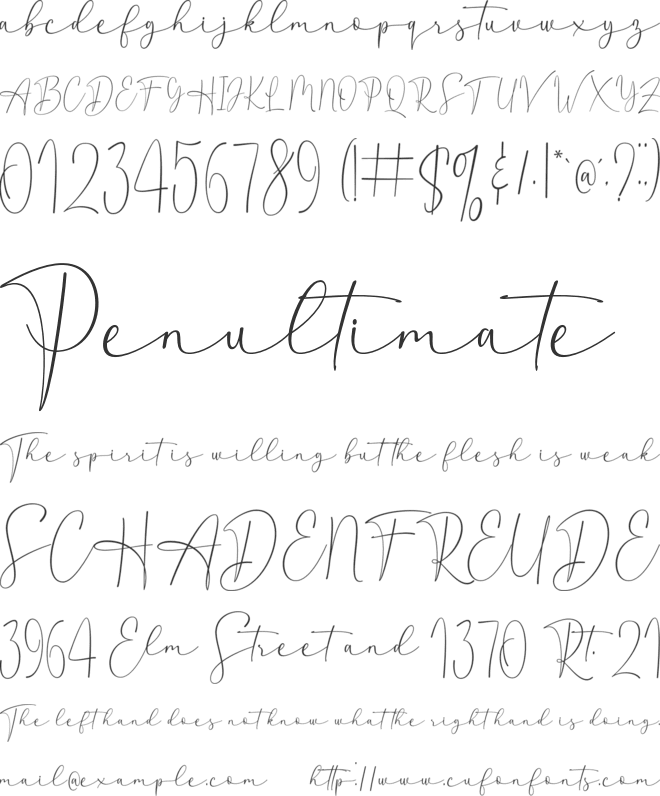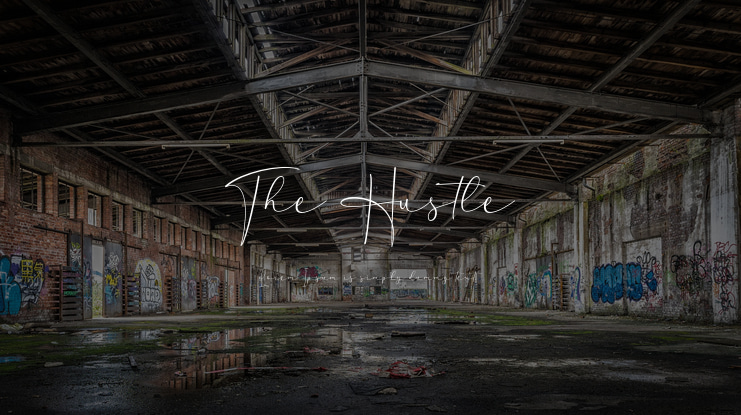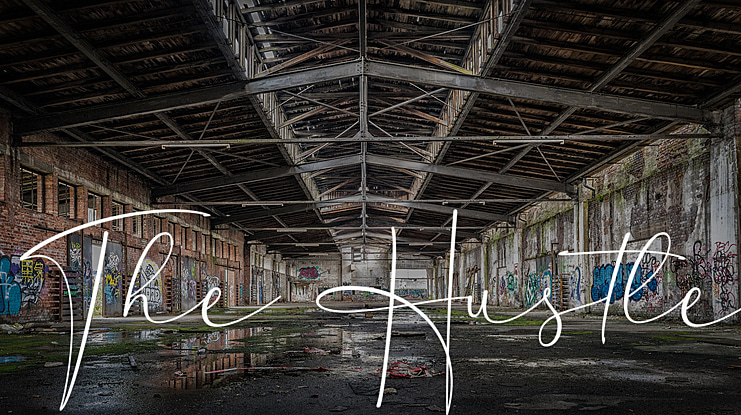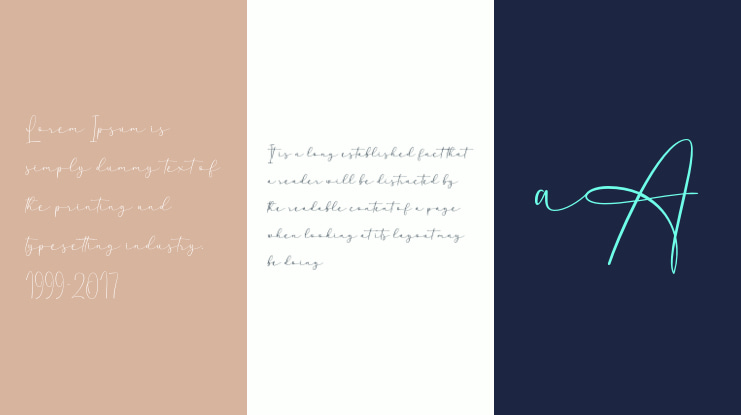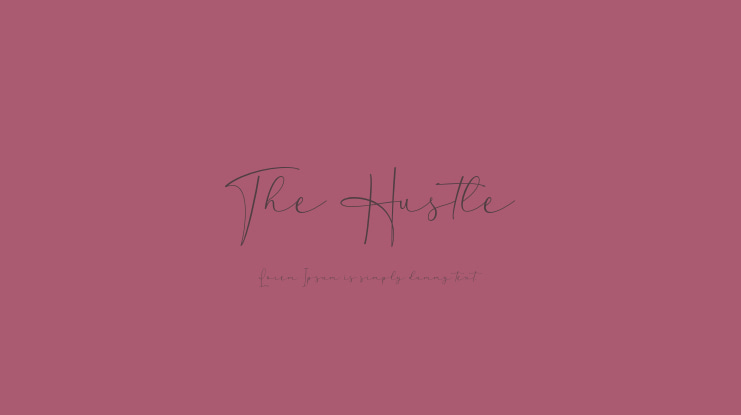
The Hustle Font
The Hustle is a signature Font with a handwritten and script style make this font looks elegant, natural, stylish and perfect for any awesome projects that need signature taste.The Hustle would perfect for photography, watermark, social media posts, advertisements, logos & branding, invitation, product designs, label, stationery, wedding designs, product packaging, special events or anything that need signature taste.What’s include :- The Hustle OTF- The Hustle TTFHappy Designing